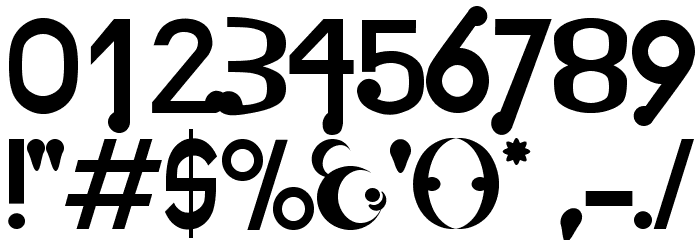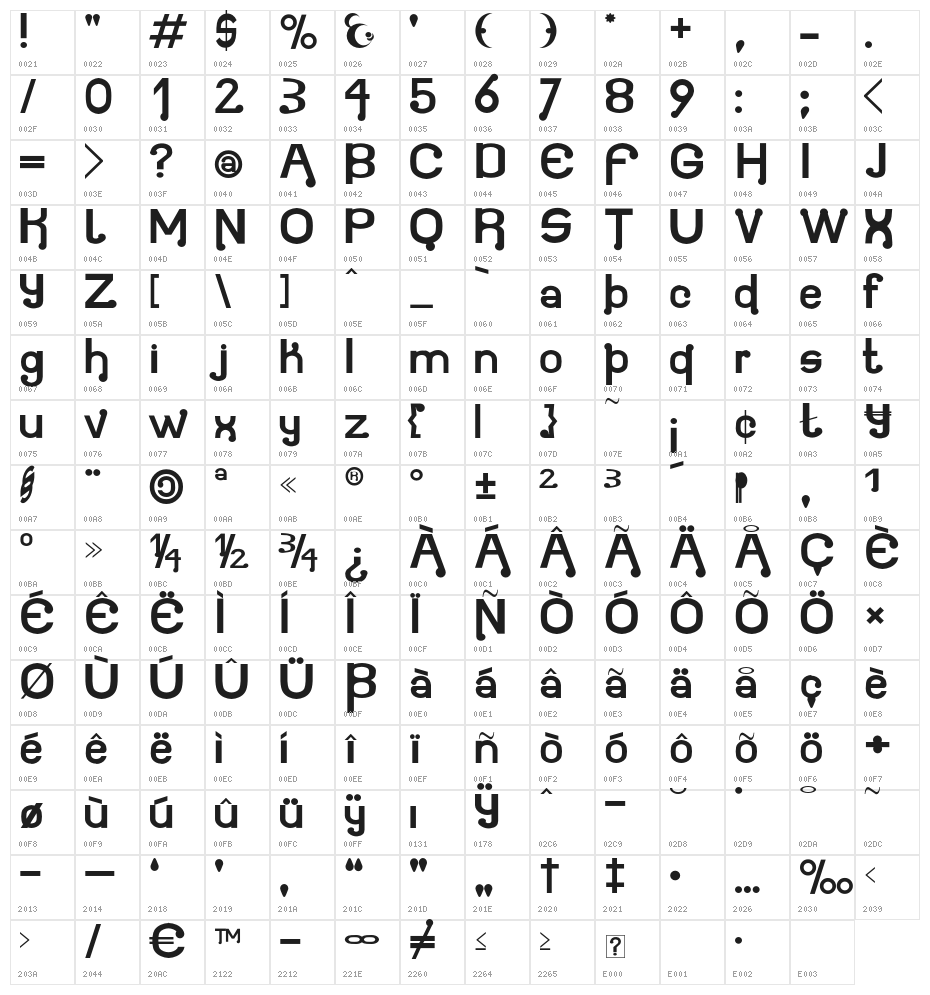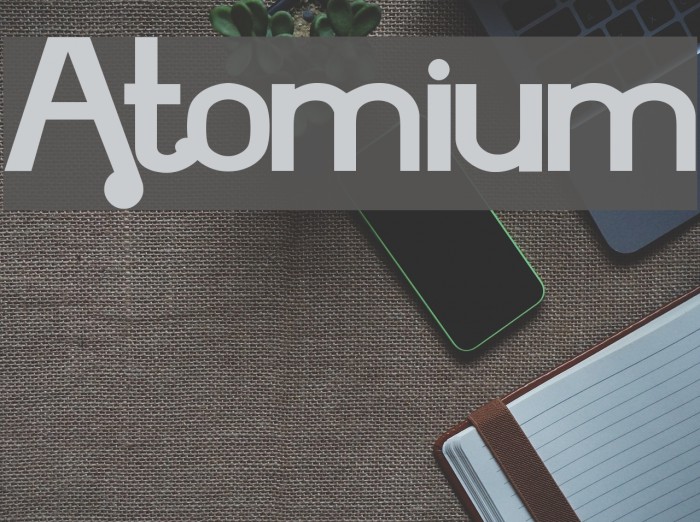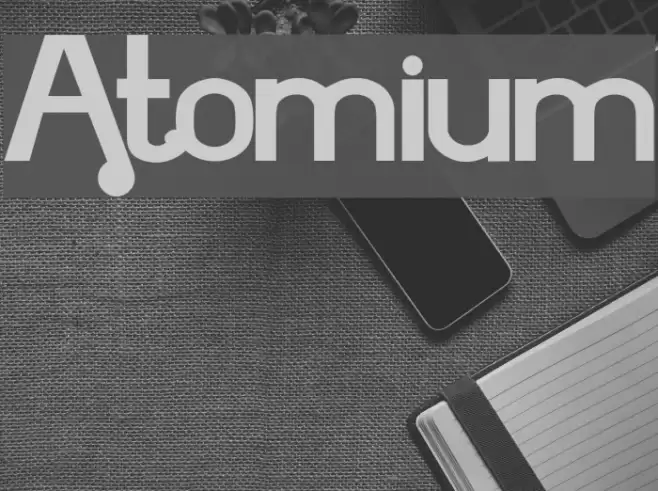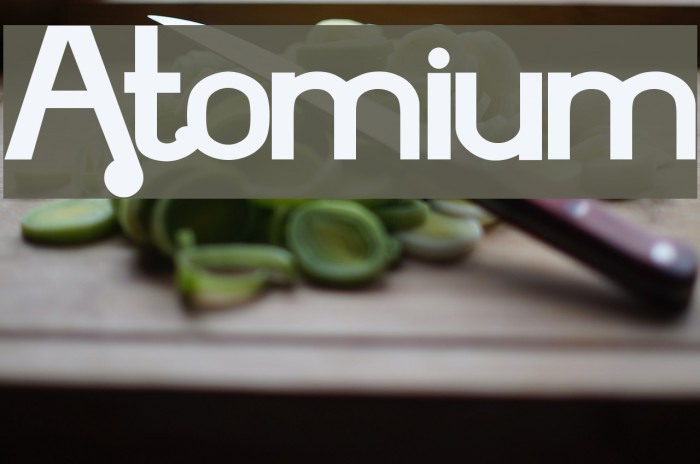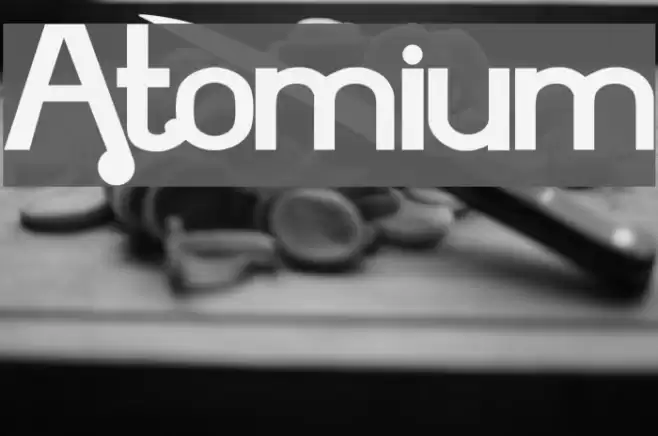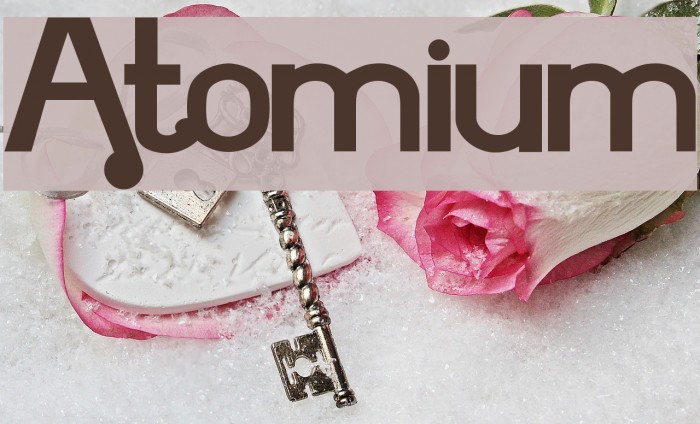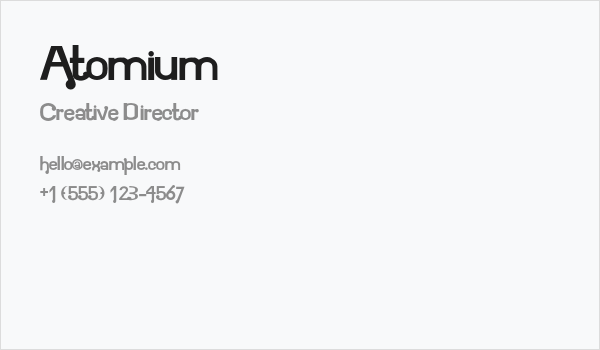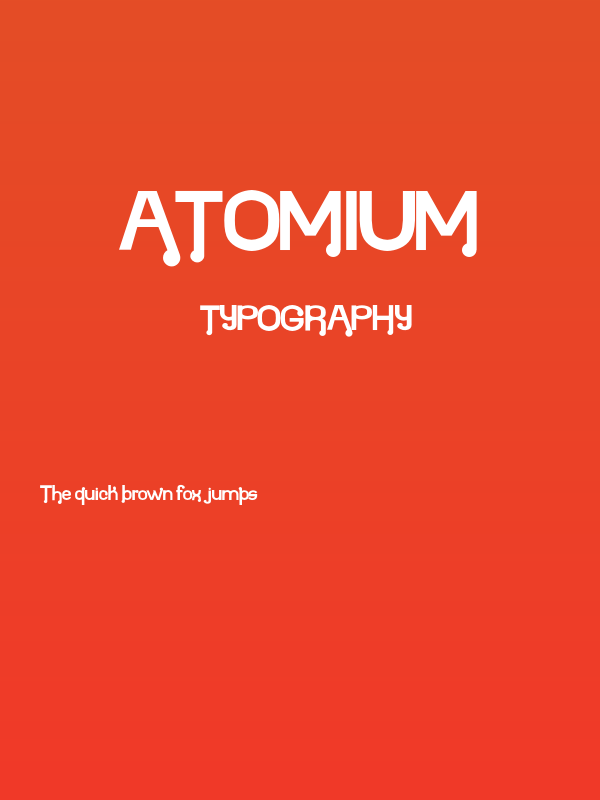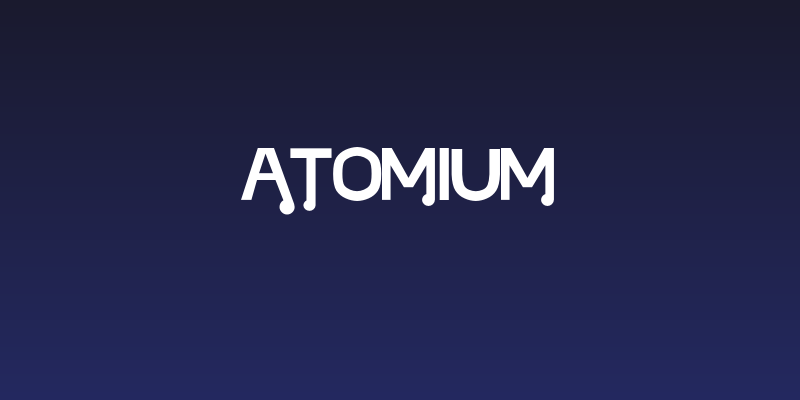
Atomium Font
Atomium Description
This font features a unique and modern design with rounded terminals and a bold presence. The characters are well-balanced, with a consistent stroke width that gives it a cohesive look. The uppercase letters are slightly wider, providing a strong visual impact, while the lowercase letters maintain a friendly and approachable style. The numerals are clear and distinct, making them easily readable. Special characters are creatively designed, adding a playful touch to the overall appearance. This font is versatile and can be used in various design projects that require a contemporary and stylish typeface.